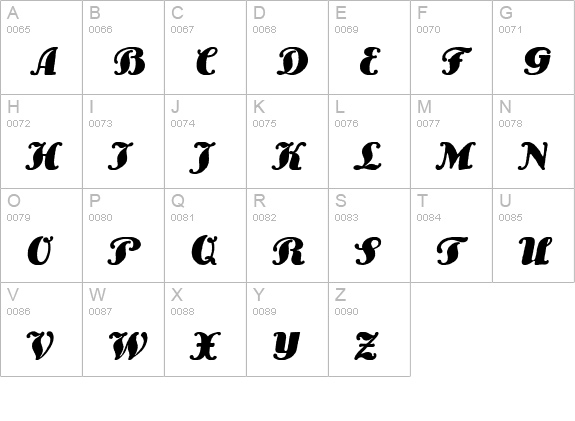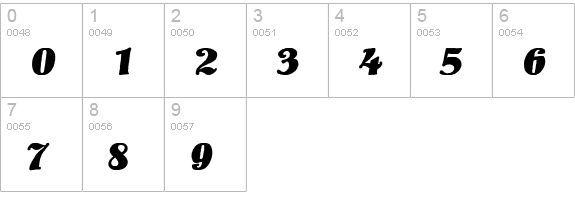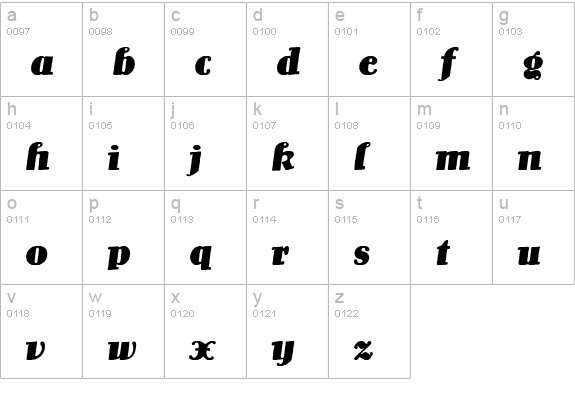
Lo-Type (R) Medium Italic Font Details
Lo-Type (R) Medium Italic is a balanced, medium-weight, italic variant in the Lo typeface family \xE2\x80\x94 well suited to sub-headlines, navigation, and balanced editorial work.
Lo-Type (R) Medium Italic font is a sleek and stylish typeface designed for modern design projects. Its medium weight and italic style give it a unique and elegant look, making it perfect for a variety of applications, from branding to editorial design. What sets Lo-Type (R) Medium Italic font apart is its versatility and readability, making it a great choice for both print and digital projects. Whether you're designing a logo, creating a poster, or laying out a magazine spread, this font will add a touch of sophistication to your work. And the best part? Lo-Type (R) Medium Italic font is completely free to download at FontsMarket.com. So you can start using this beautiful typeface in your projects right away, without having to worry about any additional costs. Don't miss out on this amazing opportunity to elevate your designs with Lo-Type (R) Medium Italic font.